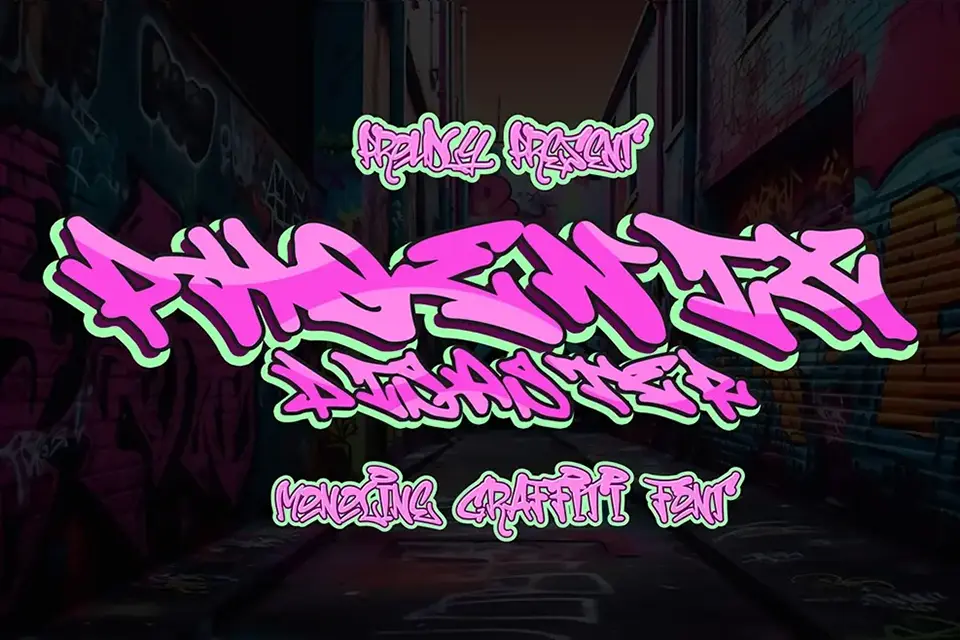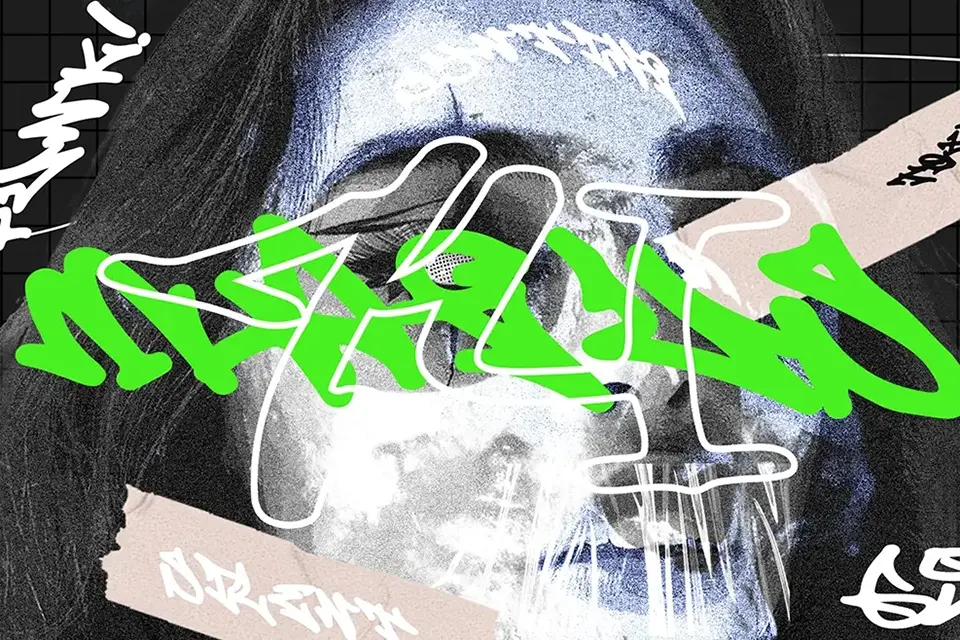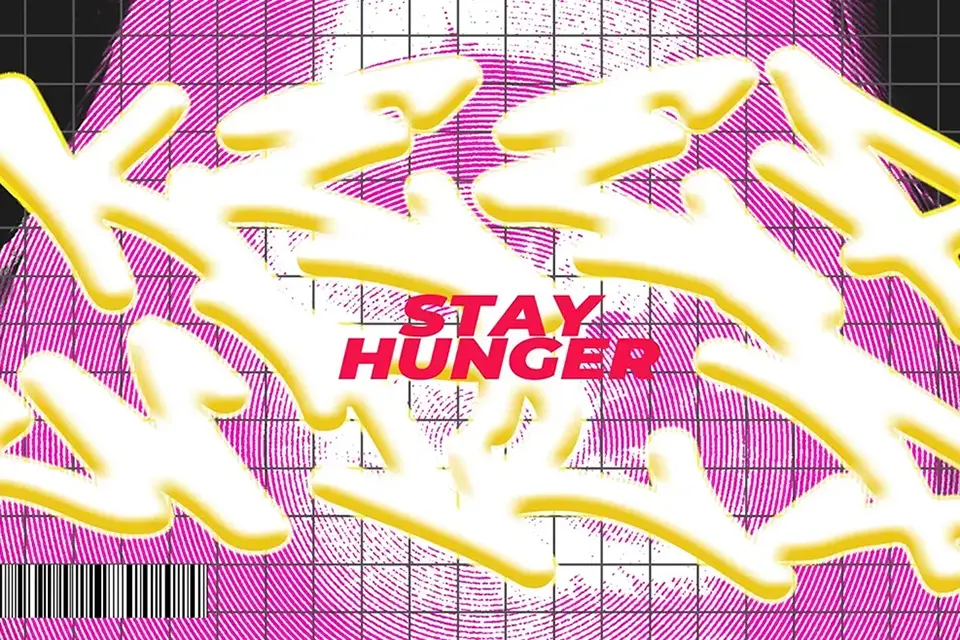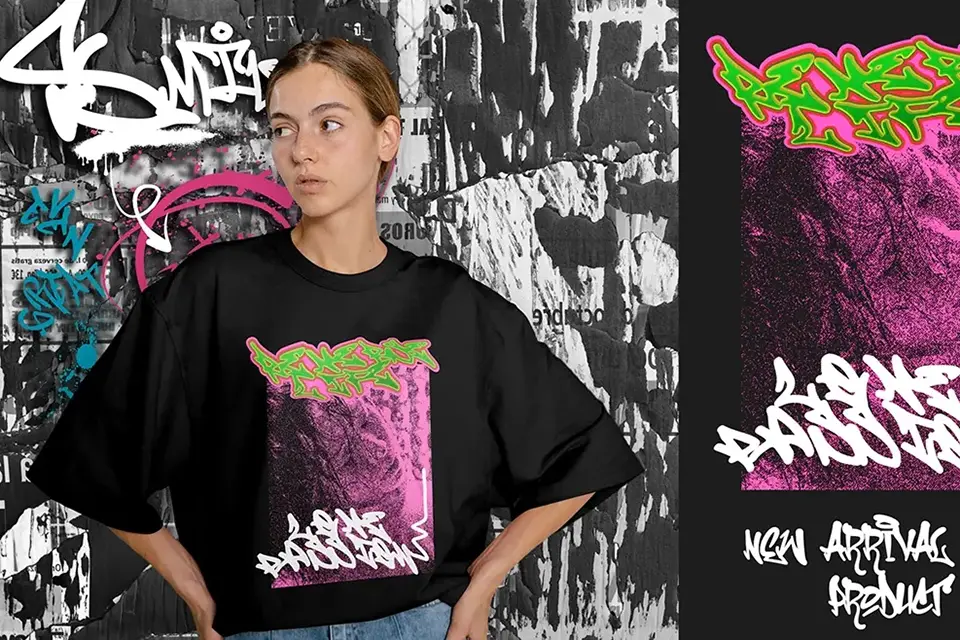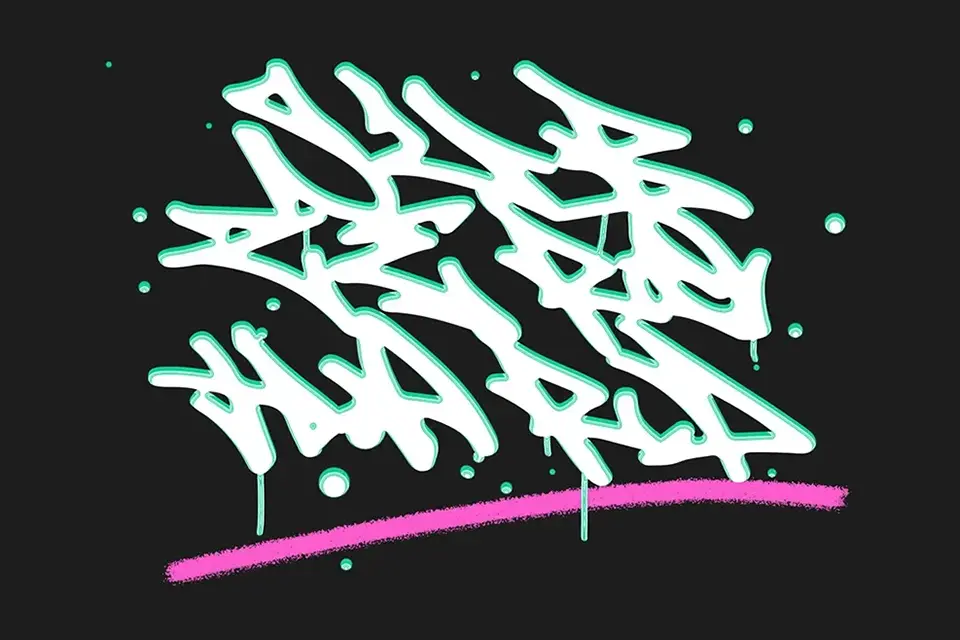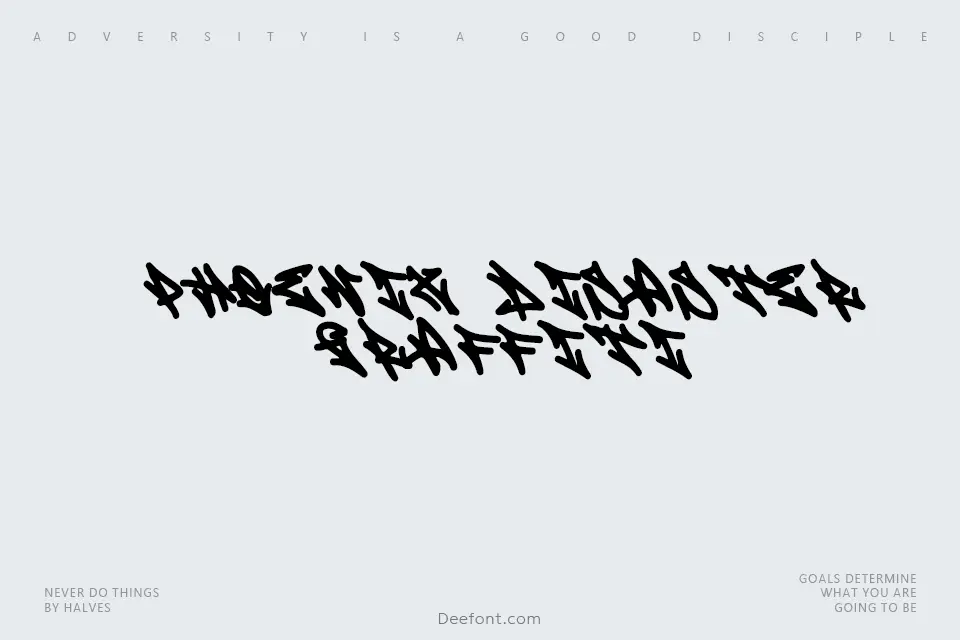
Phoenix Disaster Graffiti Font
Phoenix Disaster Graffiti is an expressive graffiti-style font created by Cikareotype Studio that brings vibrant urban energy to your designs. This free font features bold, dynamic letterforms with chaotic yet balanced strokes, combining angular and circular elements that capture the rebellious spirit of street art. Perfect for packaging design, book covers, album art, posters, and headline typography, this font delivers an instantly captivating aesthetic ideal for contemporary creative projects seeking authentic graffiti vibes.